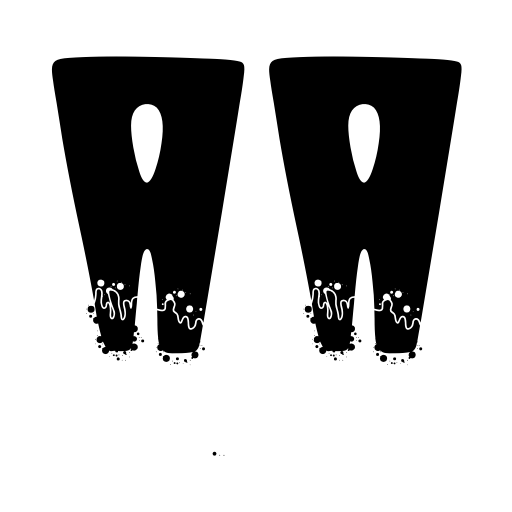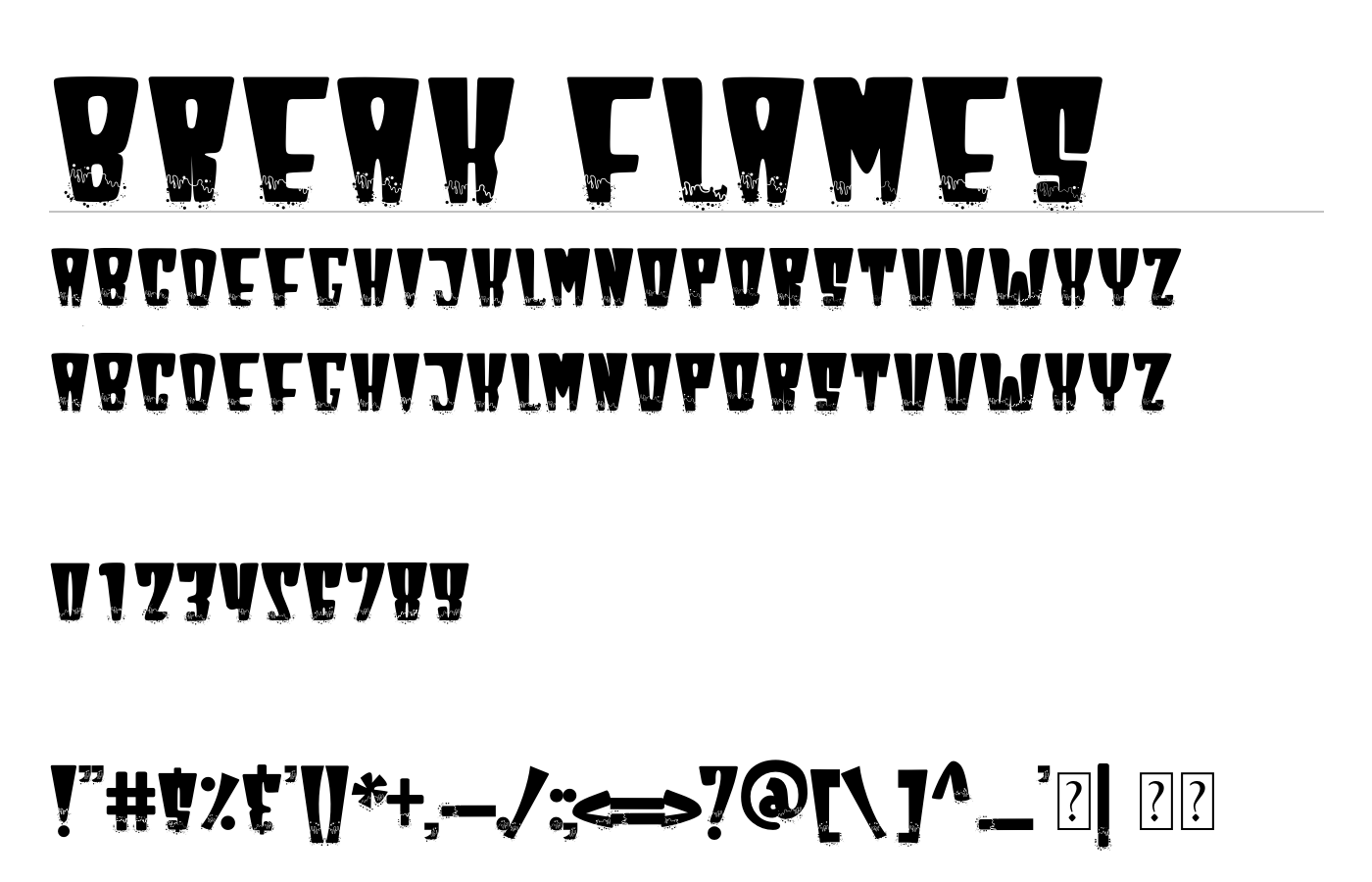
Break Flames is a bold, condensed display font with a playful yet edgy vibe, characterized by its tall, blocky letterforms and unique dripping flame-like details at the bottom. This all-caps typeface brings a strong visual impact, making it ideal for eye-catching headlines, posters, and branding that want to convey a dynamic, energetic, or rebellious mood. Its distinctive style works best in creative projects where attention-grabbing and a touch of fun are key.
Break Flames Font
About Break Flames Font